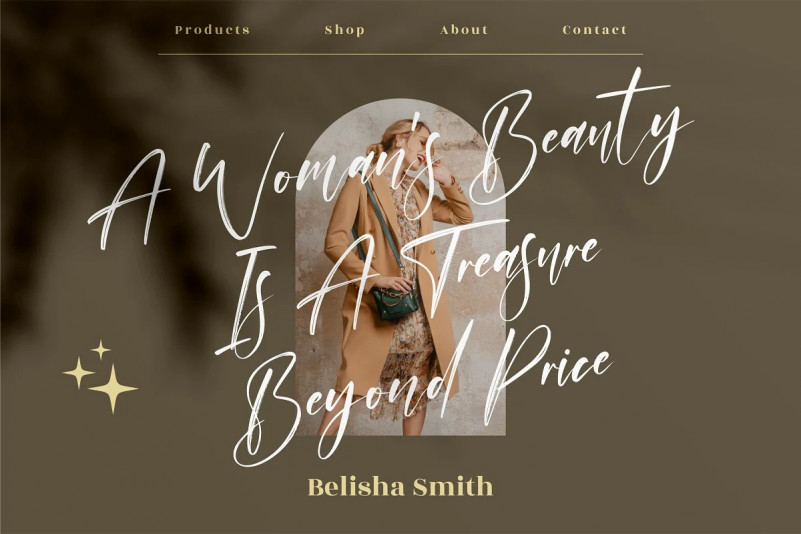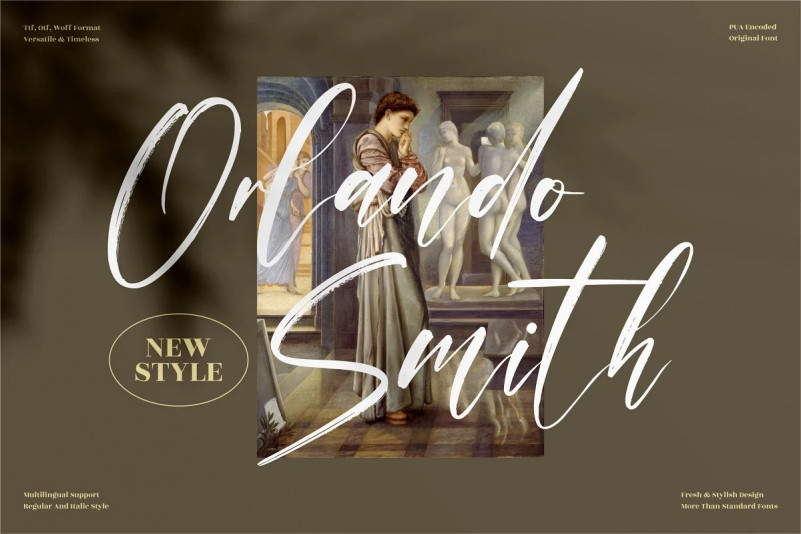
Orlando Smith Brush Font
Orlando Smith – Premium Brush Font, from Perspectype Studio, is a handwritten font, suitable for any projects such as: logos, branding projects, homeware designs, product packaging, mugs, quotes, posters, shopping bags, t-shirts, book covers, name card, invitation cards, greeting cards, label, photography, watermark, special events, and all your other luxury projects that need a handwritten taste.